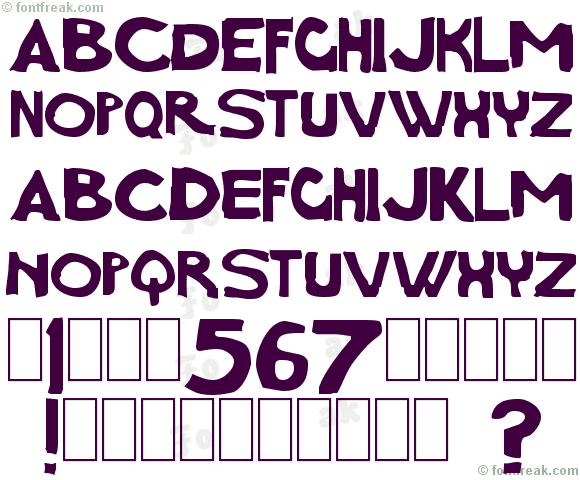
Charcoal first
Charcoal First, designed by Greg Meronek, is a striking display font that falls under the decorative category. Released in 1997 by Graphics Art Us, this typeface stands out with its unique, hand-drawn style, exuding a rustic charm that brings personality to any design project. The font features a medium stroke weight, offering a balanced contrast that enhances readability while maintaining an artistic flair. The letters are spaced generously, giving them room to breathe, which adds to the overall legibility and aesthetic appeal. Charcoal First showcases playful curves and irregular edges, reminiscent of traditional charcoal sketches, making it a perfect choice for designs that call for a touch of creativity and originality.
This versatile font is ideal for a variety of applications. Graphic designers can utilize Charcoal First for eye-catching wedding invitations, where its artistic quality can set a romantic tone. Additionally, it works wonderfully for movie posters, lending a dramatic flair that captures attention. Small business owners may find it suitable for crafting unique restaurant menus, as it adds a dash of personality while remaining easy to read. Content creators can also incorporate this font into their branding or social media graphics, ensuring their visuals stand out in a crowded digital landscape.